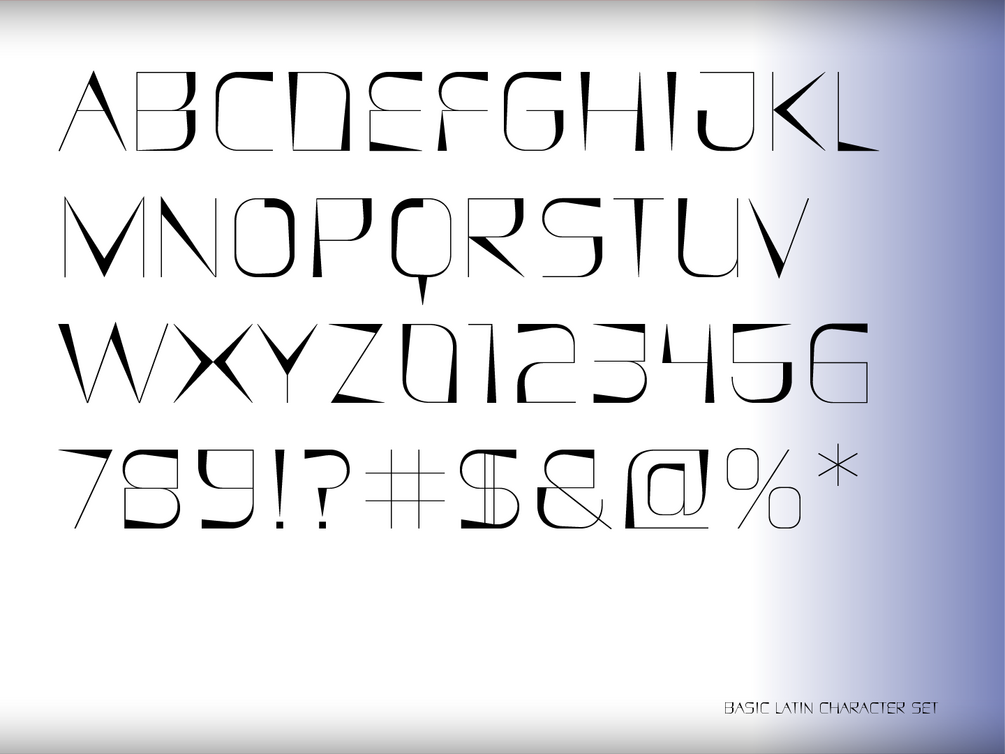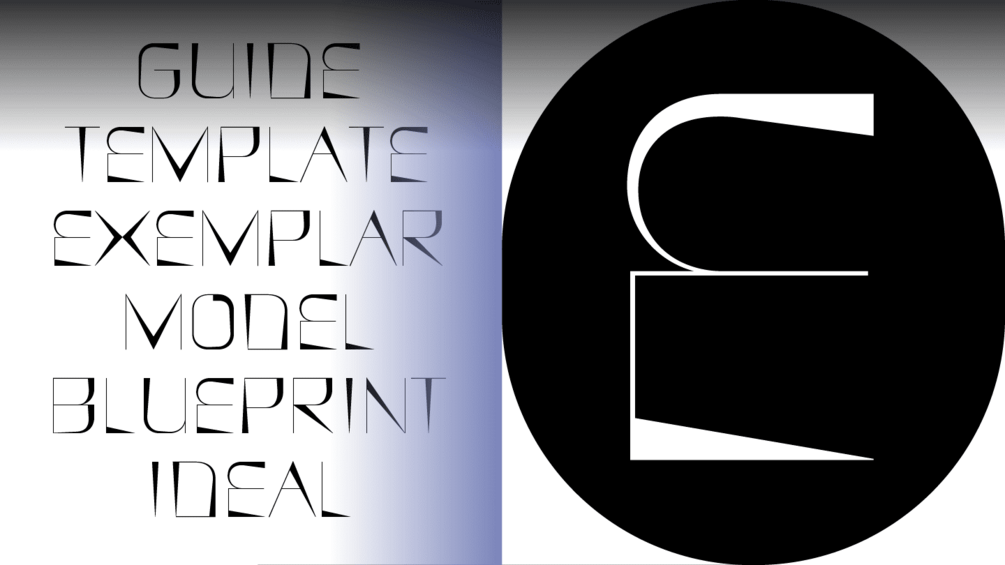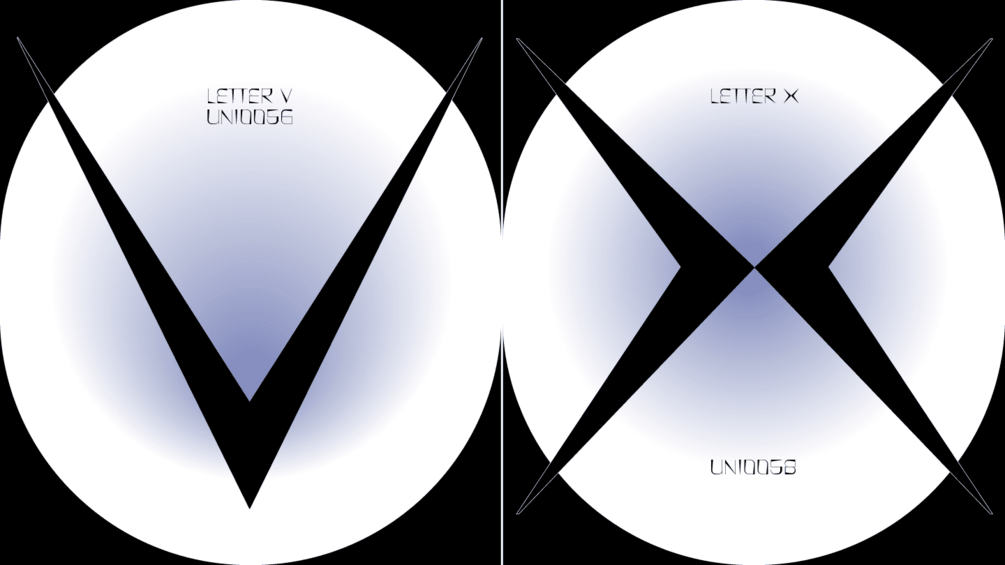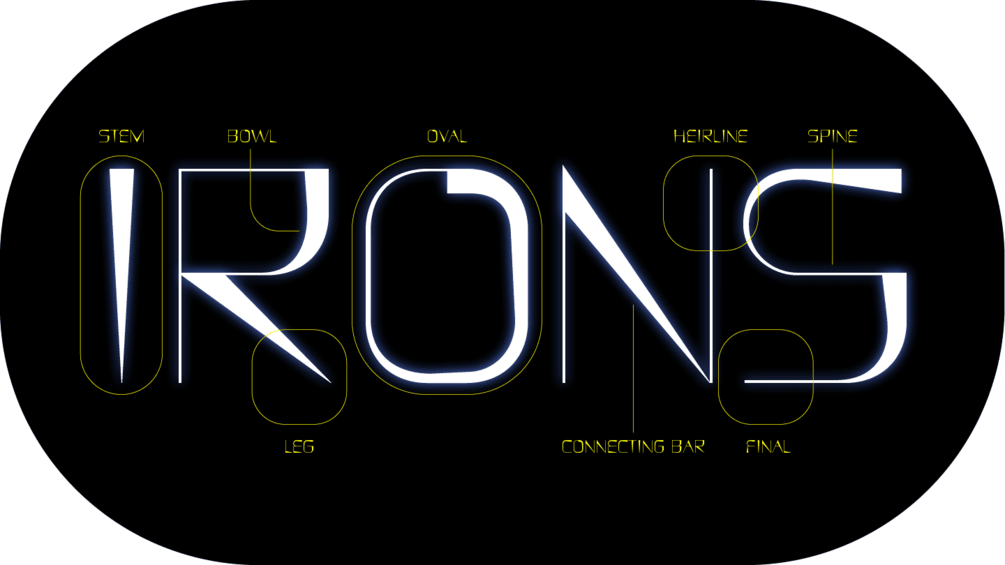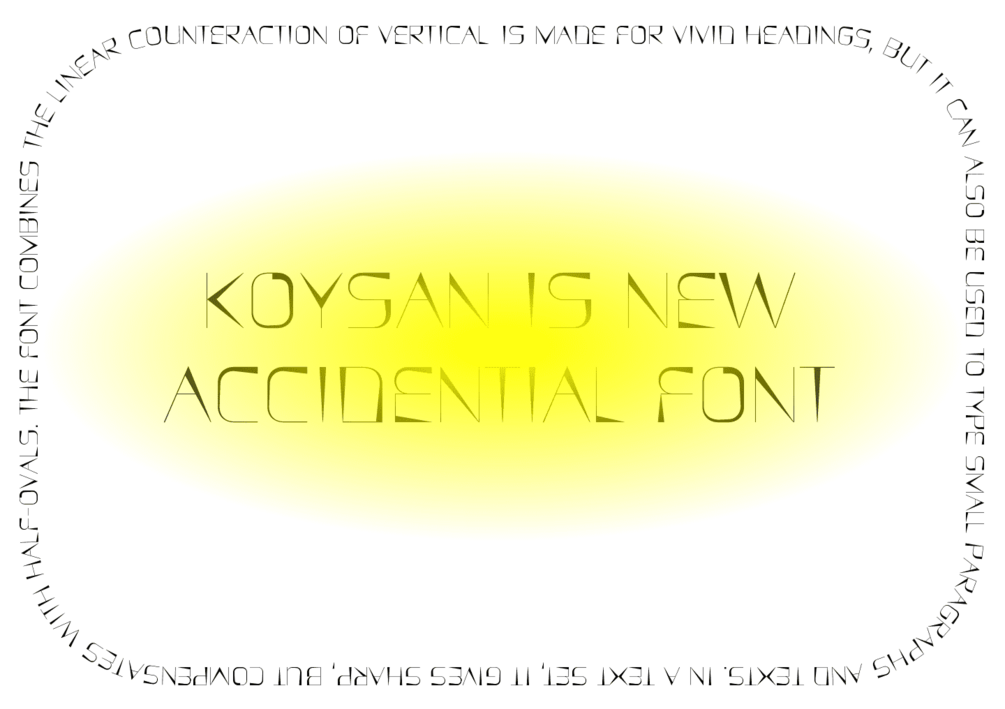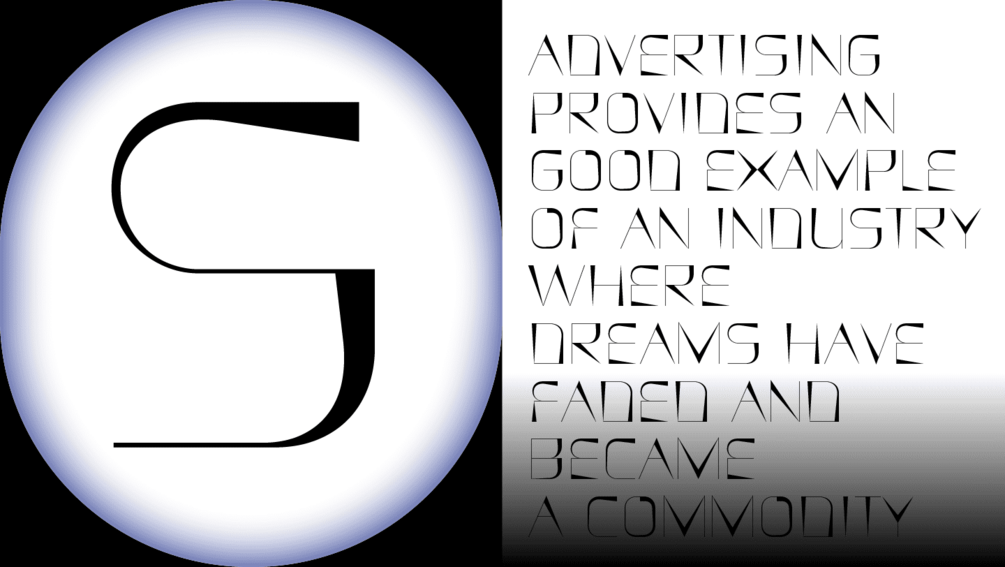
"KOYSAN" font
Koysan is a kind of digital calligraphy. Sharp strokes are combined with smooth, geometric semi-ovals, and everything is kept on thin vertical strokes. In principle, the idea of the font is that the entire contour flows evenly from a thick stroke to a thin one. This can be seen on ovals, and triangular verticals are just a linear transition of thickness.